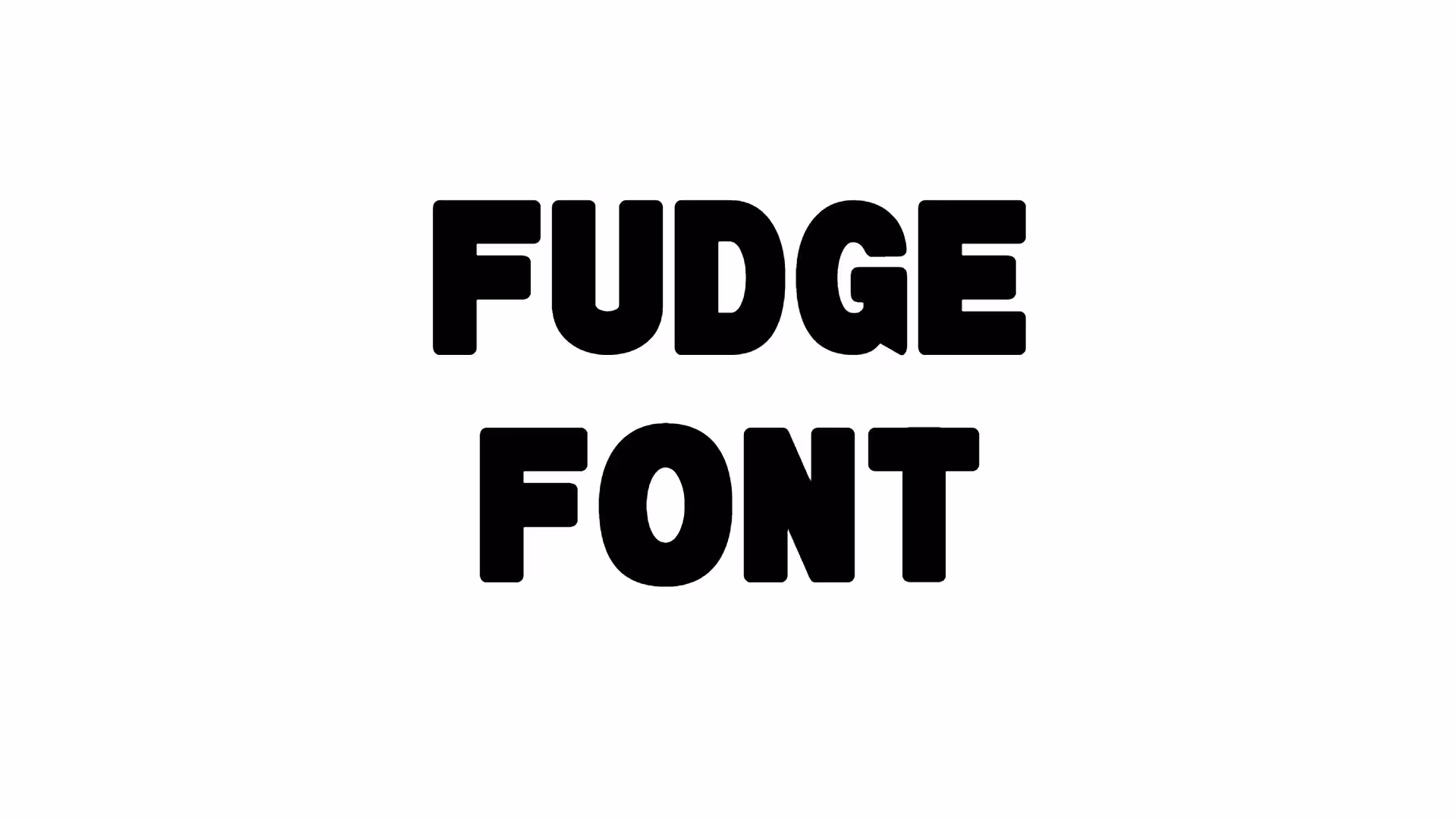
Fudge
Fudge is a sans serif font designed by Nurinto and published by Almairatype Studio (2026). It has a clean, no-nonsense look that fits modern brands and websites. It's a free download, and you can try it with your own text in the preview above first.
You get every letter from A to Z in both cases and all the numbers from 0 to 9, which means Fudge can handle full sentences, dates and prices. Everyday marks like &, !, ? and @ are there too. Thanks to its accented letters, it also works for Spanish, French, Portuguese and Italian, not just English.
Think of Fudge for websites, app screens and clean logos. It works for headings and body text alike. If the download has several weights, use a heavier one for titles and a lighter one for paragraphs.
Yes. Fudge includes the accented letters needed for Spanish, French, Portuguese and Italian, so it works for more than just English.